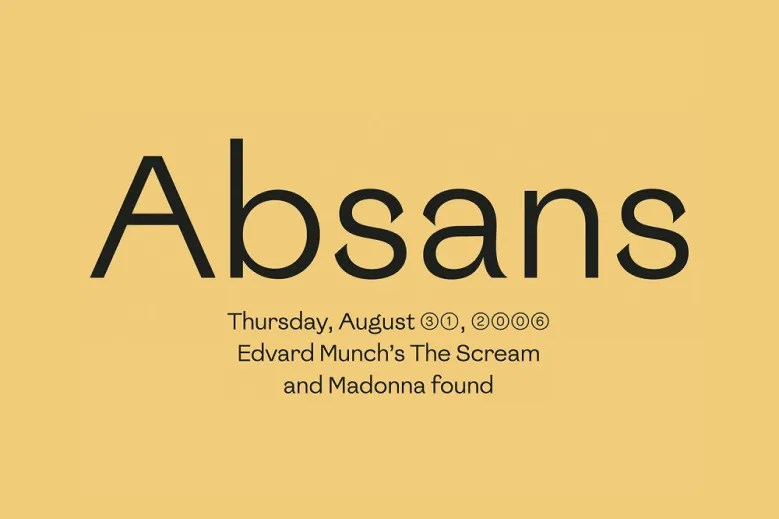
Absans Font
Absans is a sophisticated sans-serif font that skillfully blends technological influences with the graceful elements of Art Nouveau. This font was crafted to be versatile and unobtrusive, providing a clean, modern appearance while subtly incorporating the charming quirks of early 20th-century grotesque typefaces.
Despite its minimalist design, Absans does not shy away from making a statement. It boasts a unique blend of precision and personality, marked by its subtle imperfections and distinctive character traits. These elements give the font a timeless quality that stands out in both contemporary and classic design contexts.
Absans is particularly well-suited for a range of design applications where elegance and readability are paramount. Its balanced structure makes it ideal for use in both digital and print formats, including websites, brochures, posters, book covers, branding materials, and more. Whether you’re working on a tech-focused project, a creative piece, or a refined corporate identity, Absans offers a versatile solution with its understated sophistication.
The font’s quiet charm makes it a favorite among typography enthusiasts and casual users alike. It provides a modern yet classic look, suitable for tender and beautiful designs that need a touch of refinement.